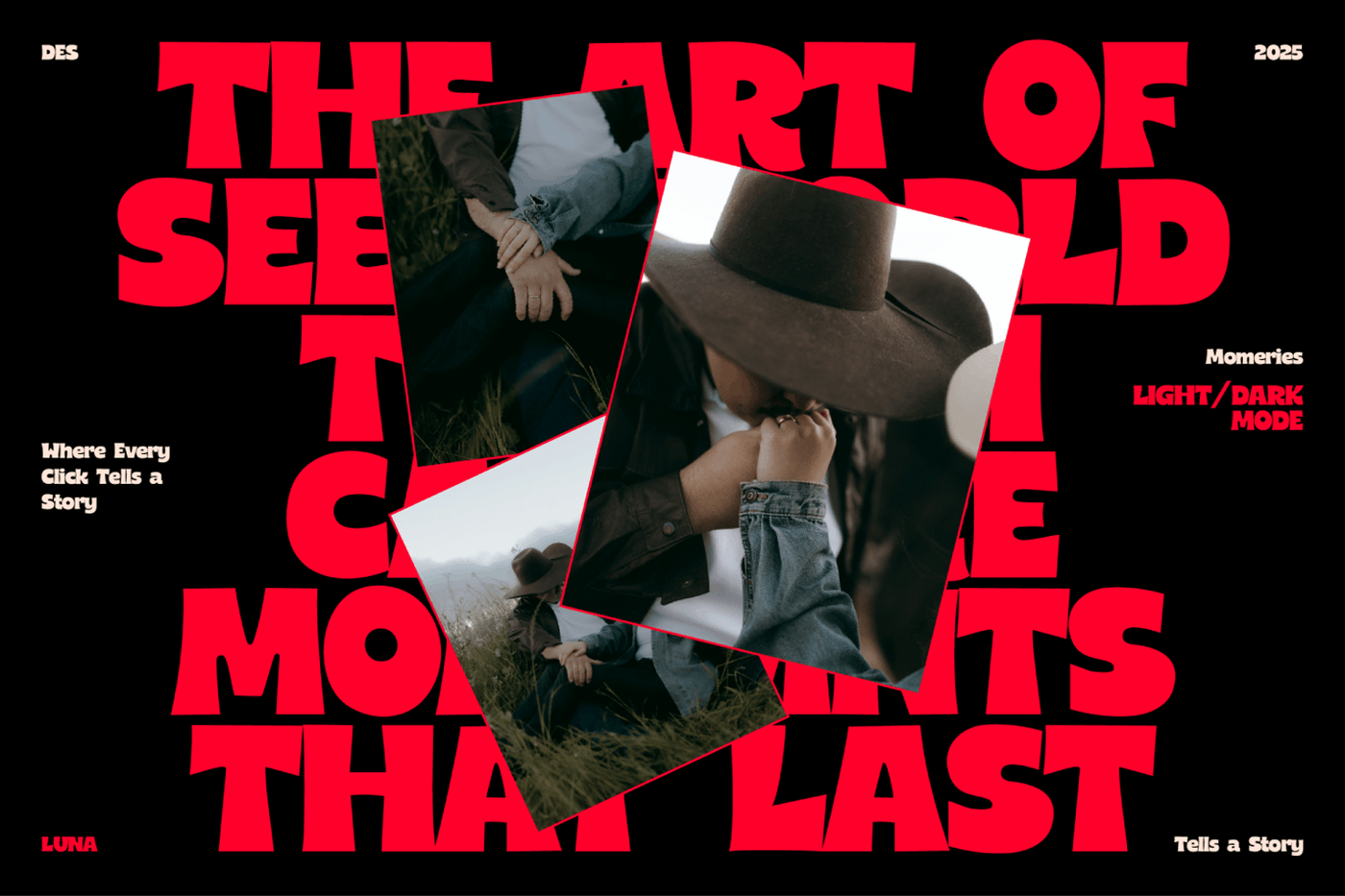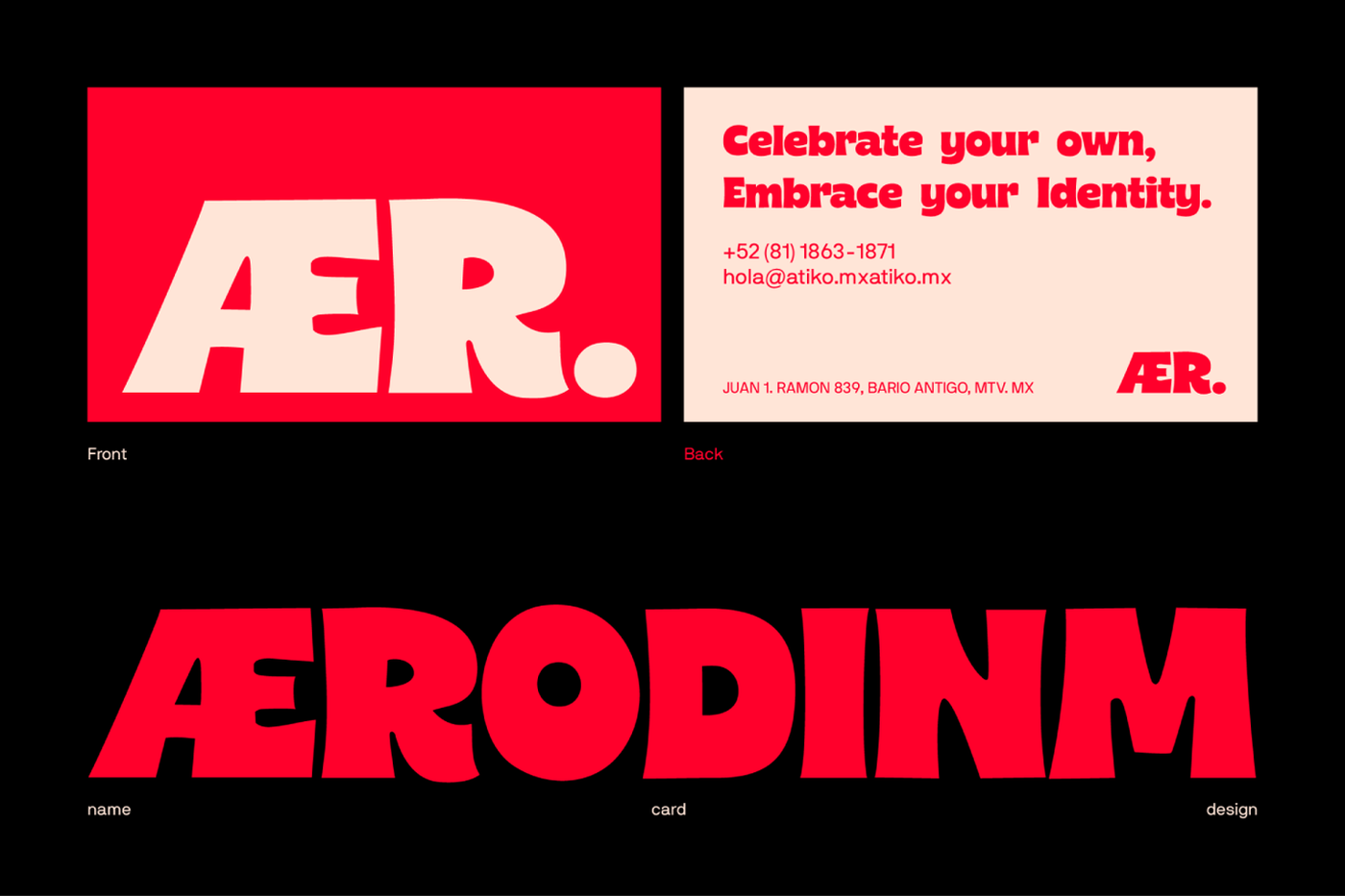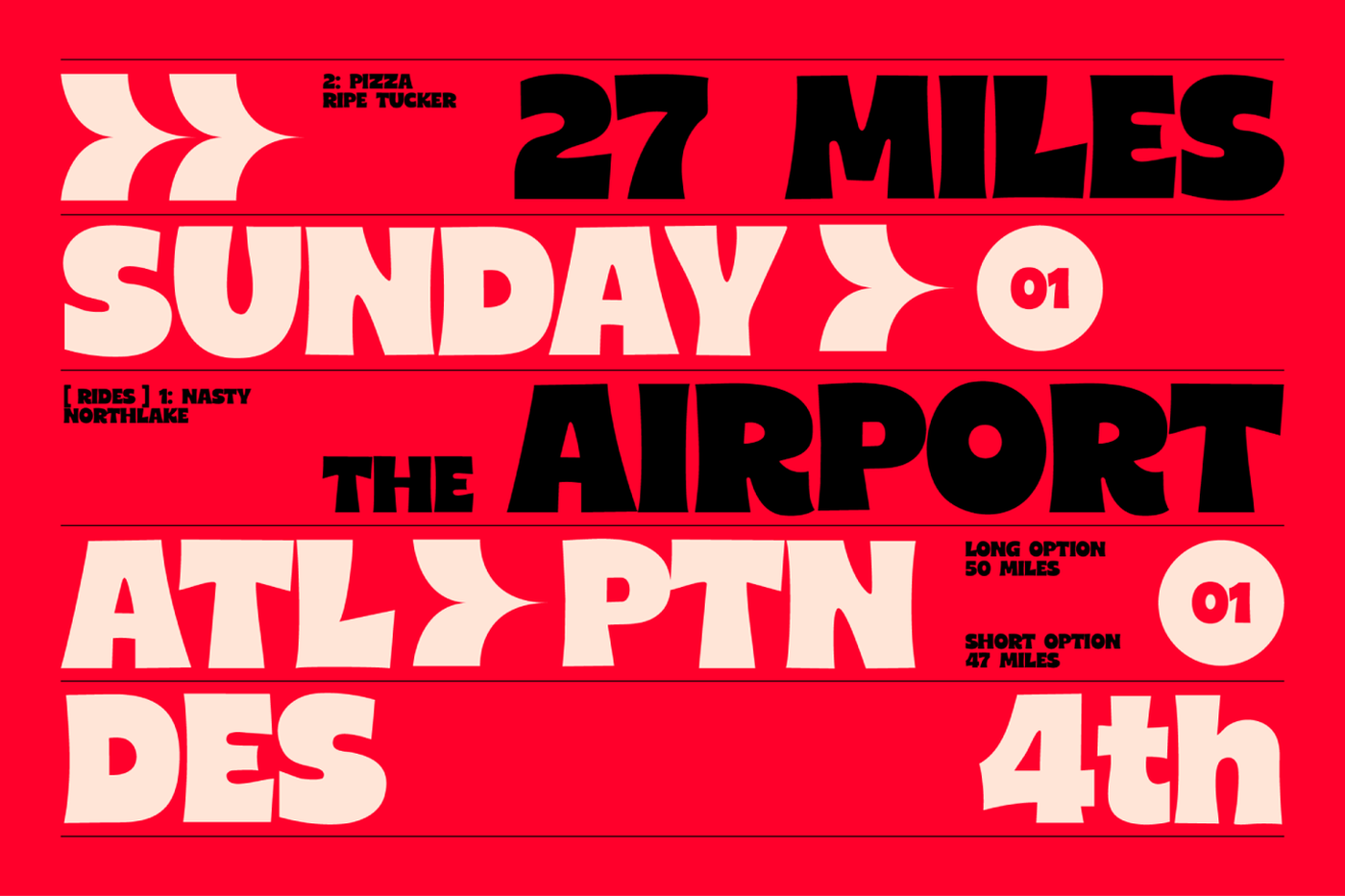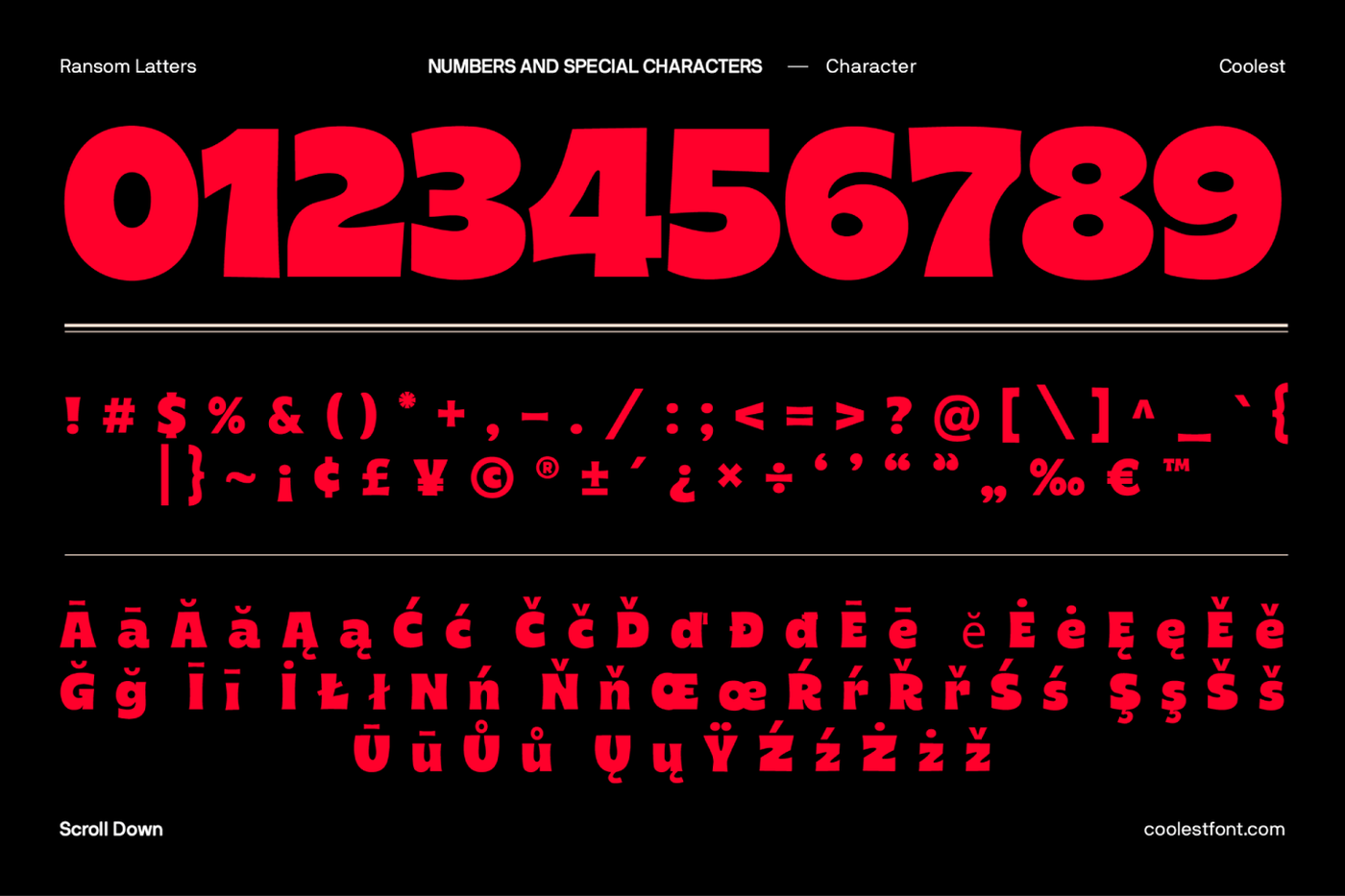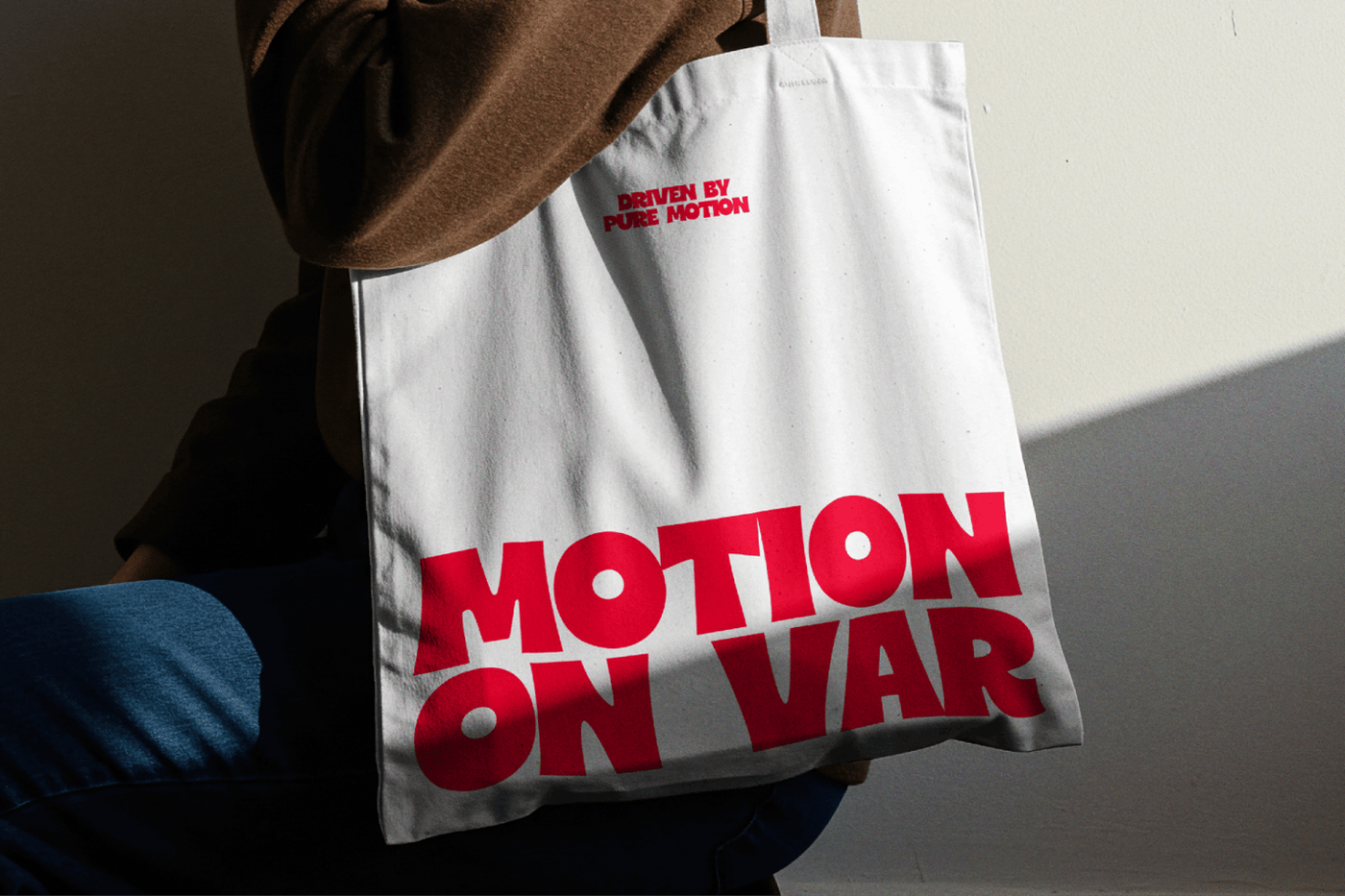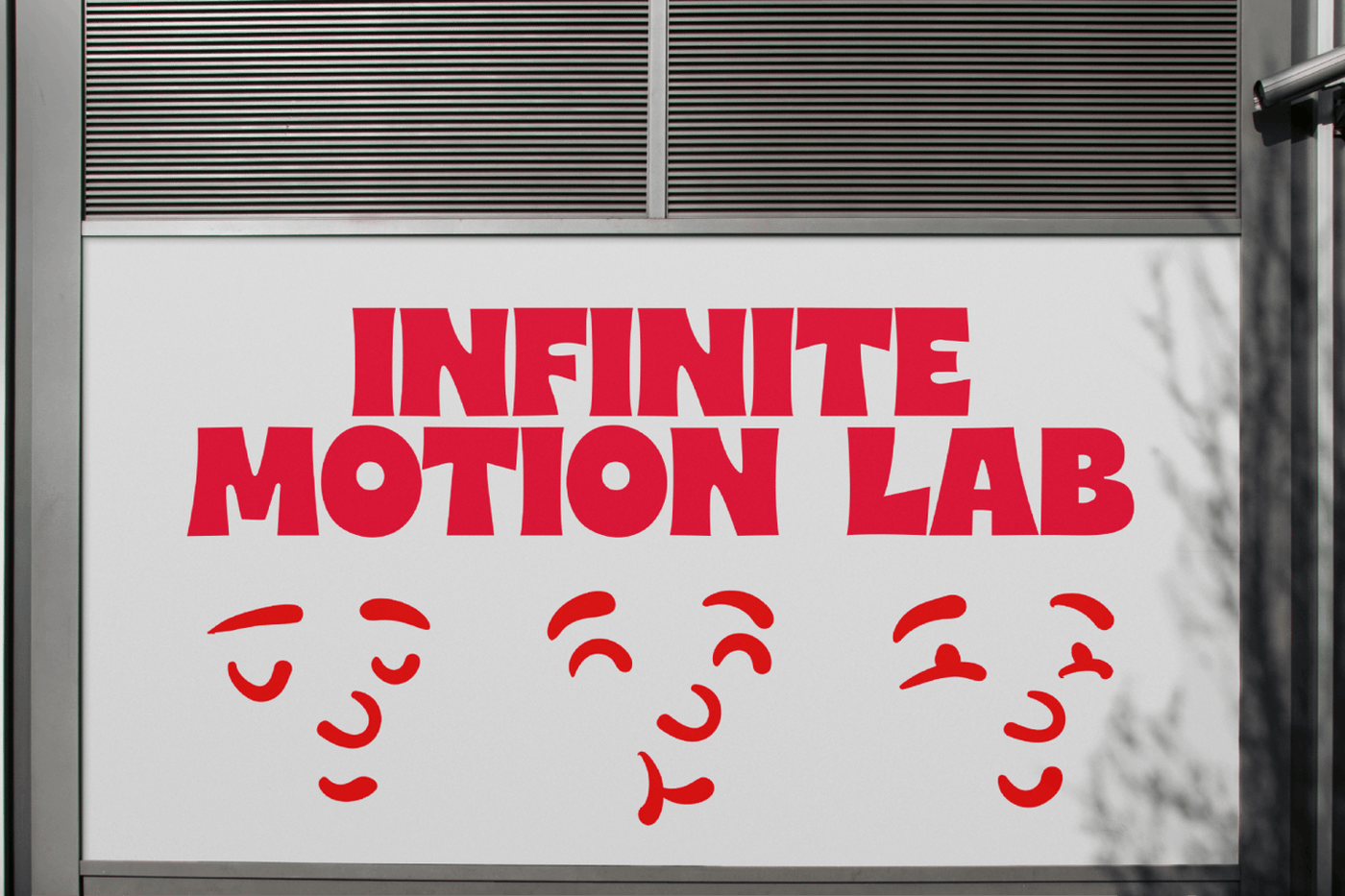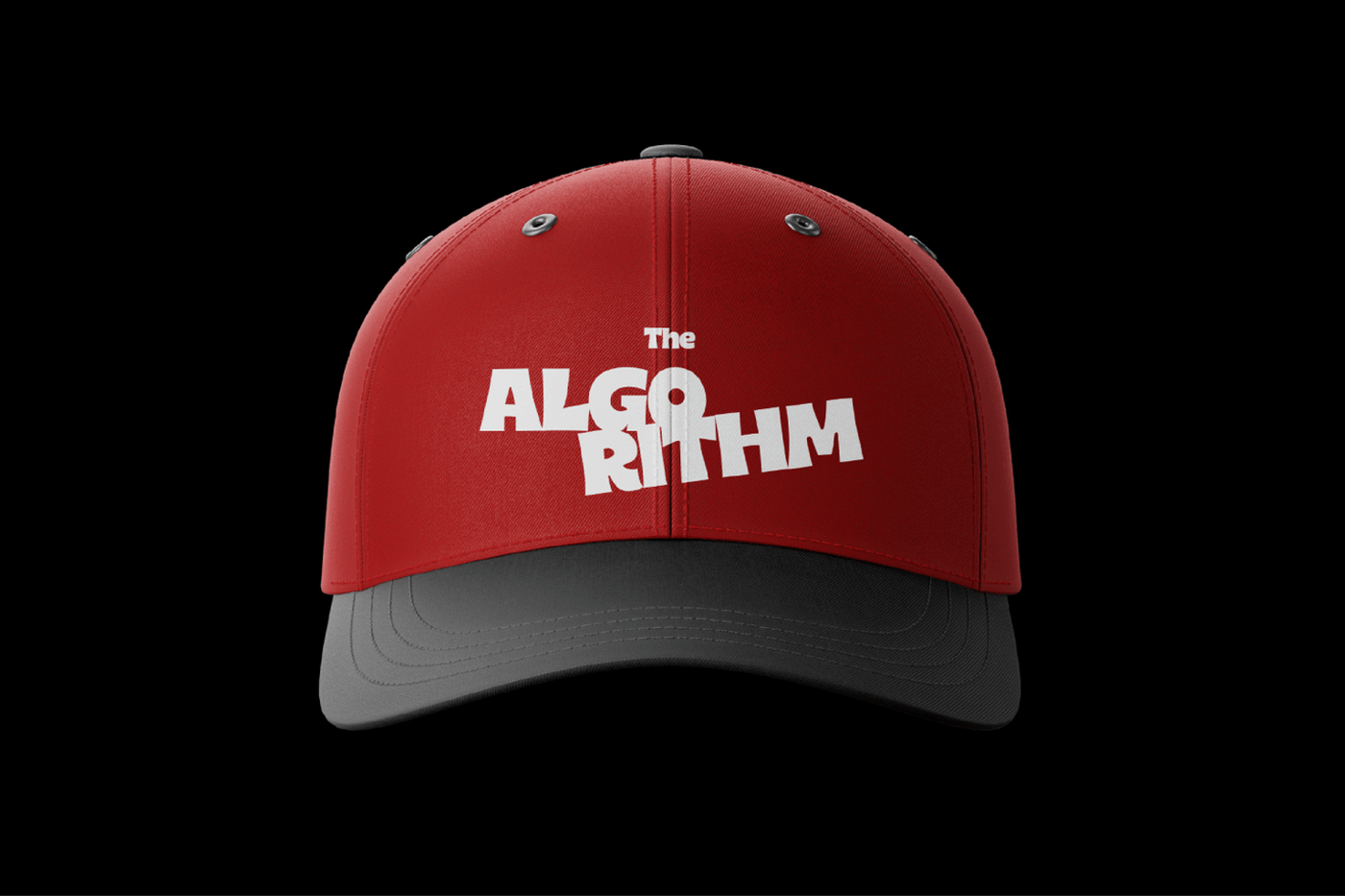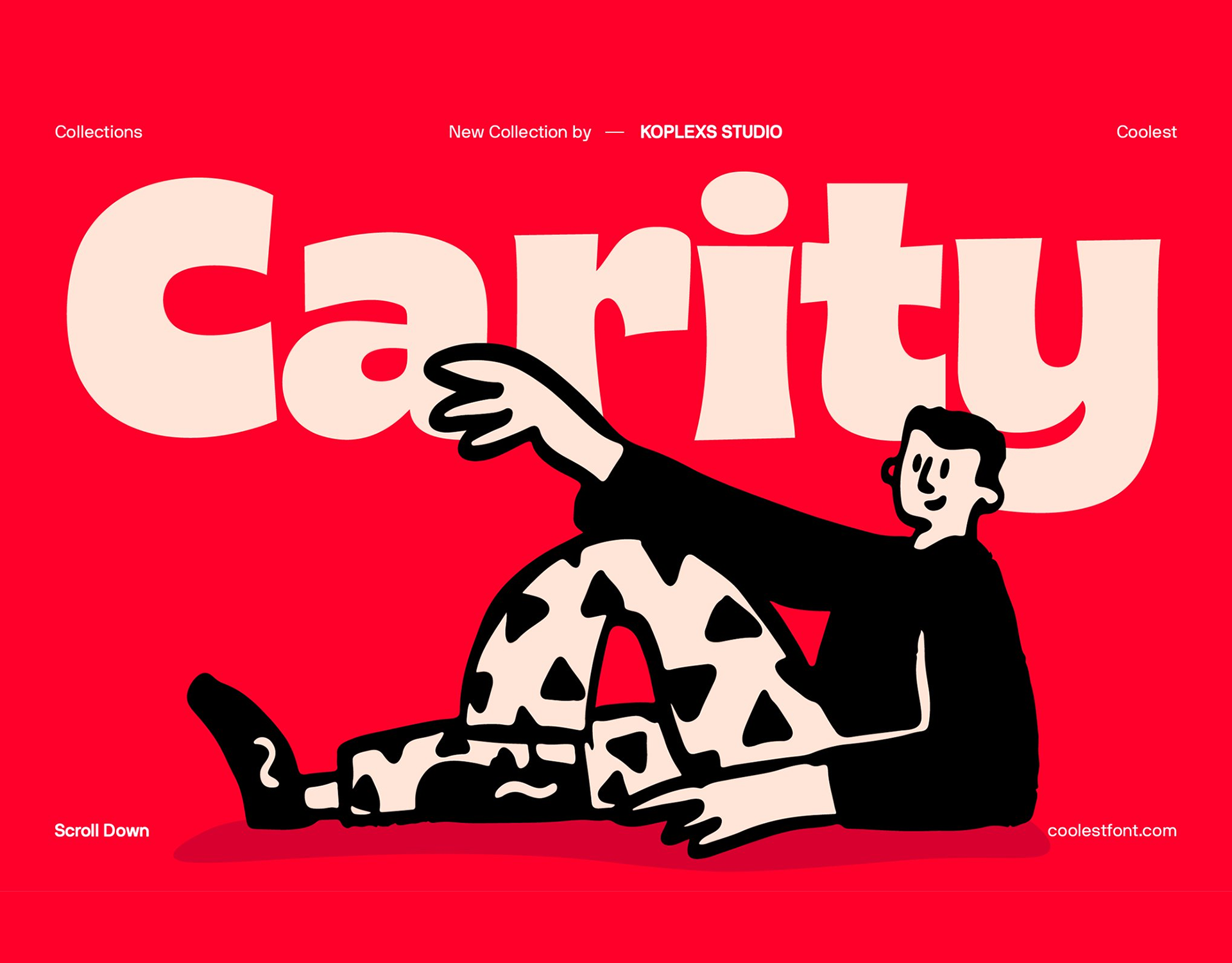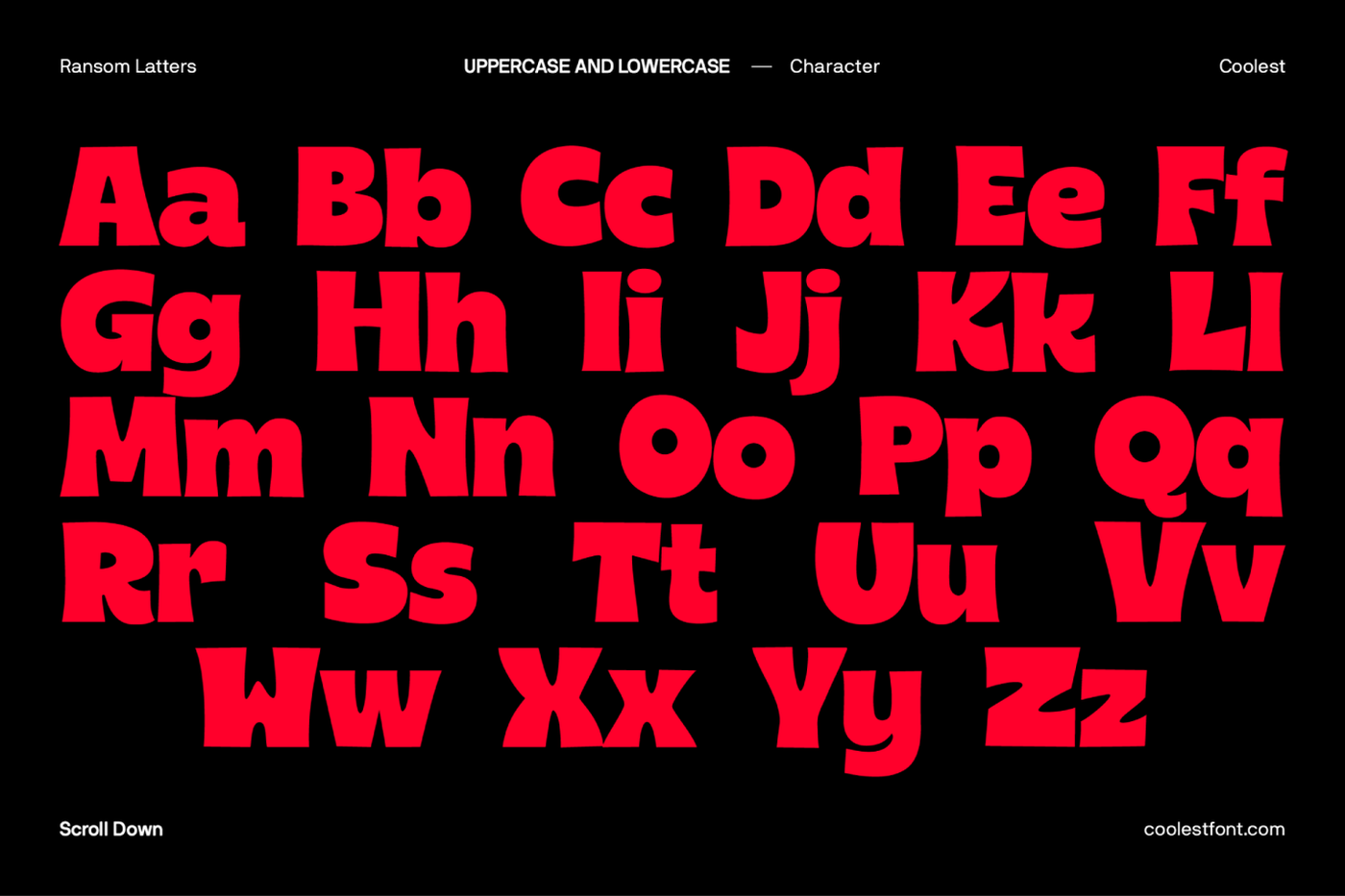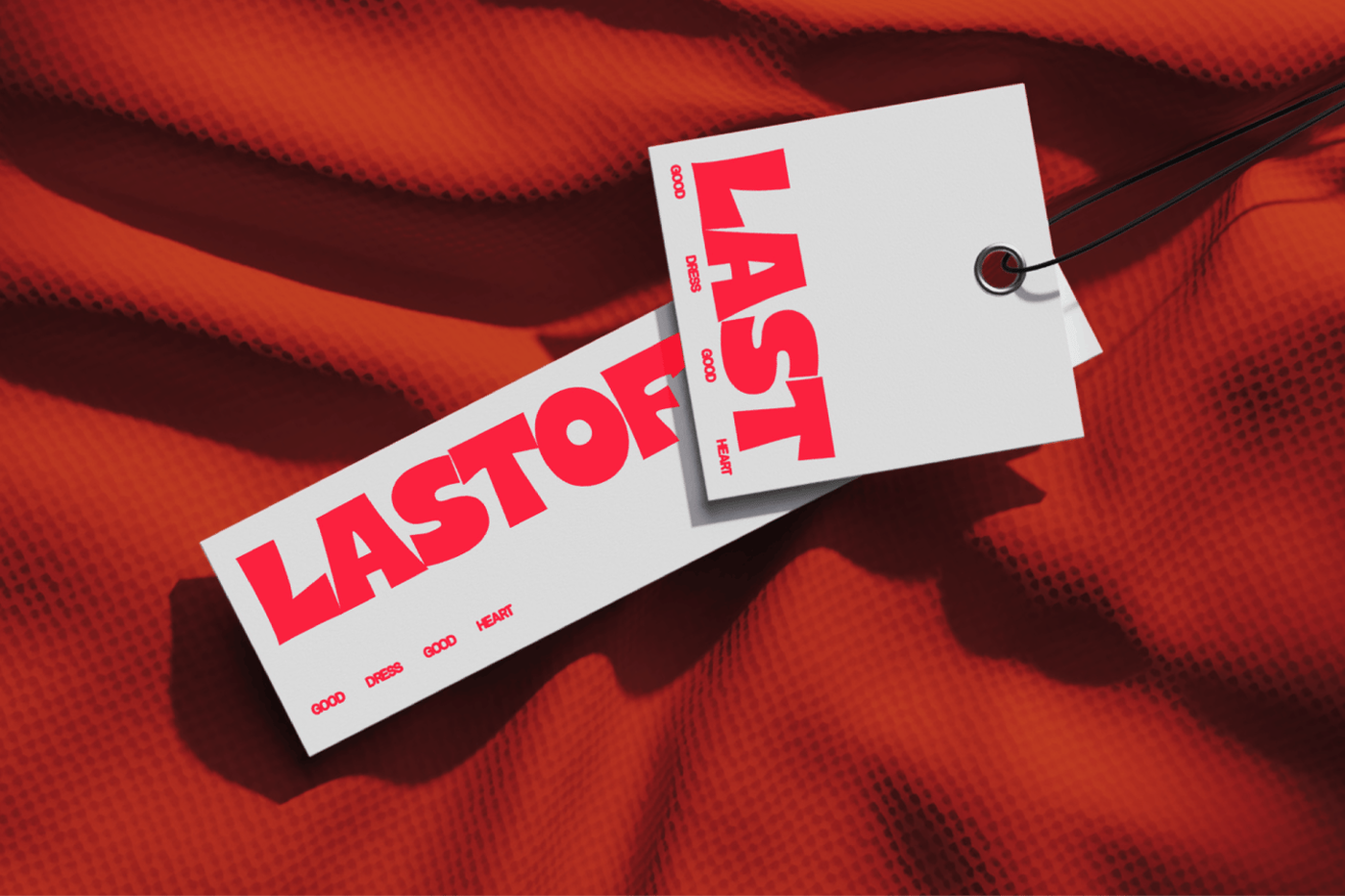
Carity - Bold Font
Carity Font is a bold modern display typeface crafted to deliver strong visual impact and expressive character in every project. Its chunky curves and playful proportions create a unique blend of strength and creativity, making it ideal for designers who want typography that stands out instantly. Whether used for branding, headline or editorial headlines, Carity brings a confident personality that enhances both digital and any designs. This typeface is built with versatility in mind, offering clean readability and a distinctive look that adapts effortlessly across various creative fields. Carity Font is perfect for: • Bold brand identities • Eye-catching posters and covers • Creative digital content • Logo design and headline graphics With its modern yet playful aesthetic, Carity provides all the tools you need to create visuals that feel fresh, memorable, and uniquely yours.